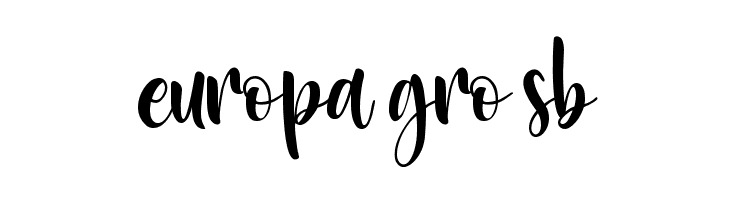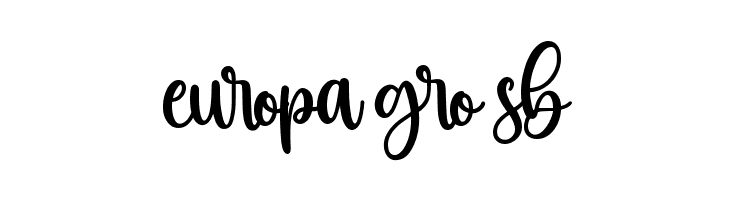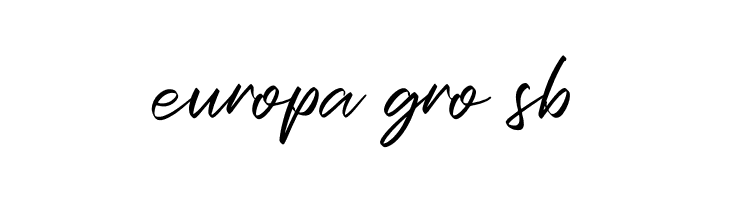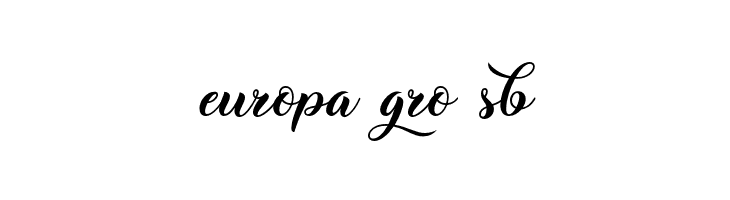
A playful, handwritten-style font with tall, narrow letters and rounded edges.
An elegant and flowing script font with graceful curves and fluid strokes.
A lively, cursive font with bold, flowing strokes and a festive, handwritten style.
A playful, whimsical handwritten font with a festive and elegant style.
A festive, cursive script font with bold, flowing strokes and elegant connections.
A playful, festive script font with flowing, interconnected letters and decorative flourishes.
A modern, handwritten script font with elegant, flowing lines.
A sophisticated, cursive script font with a flowing, handwritten style.
A charming and elegant script font with flowing, cursive letterforms.
An elegant calligraphy font with flowing strokes and decorative flourishes.